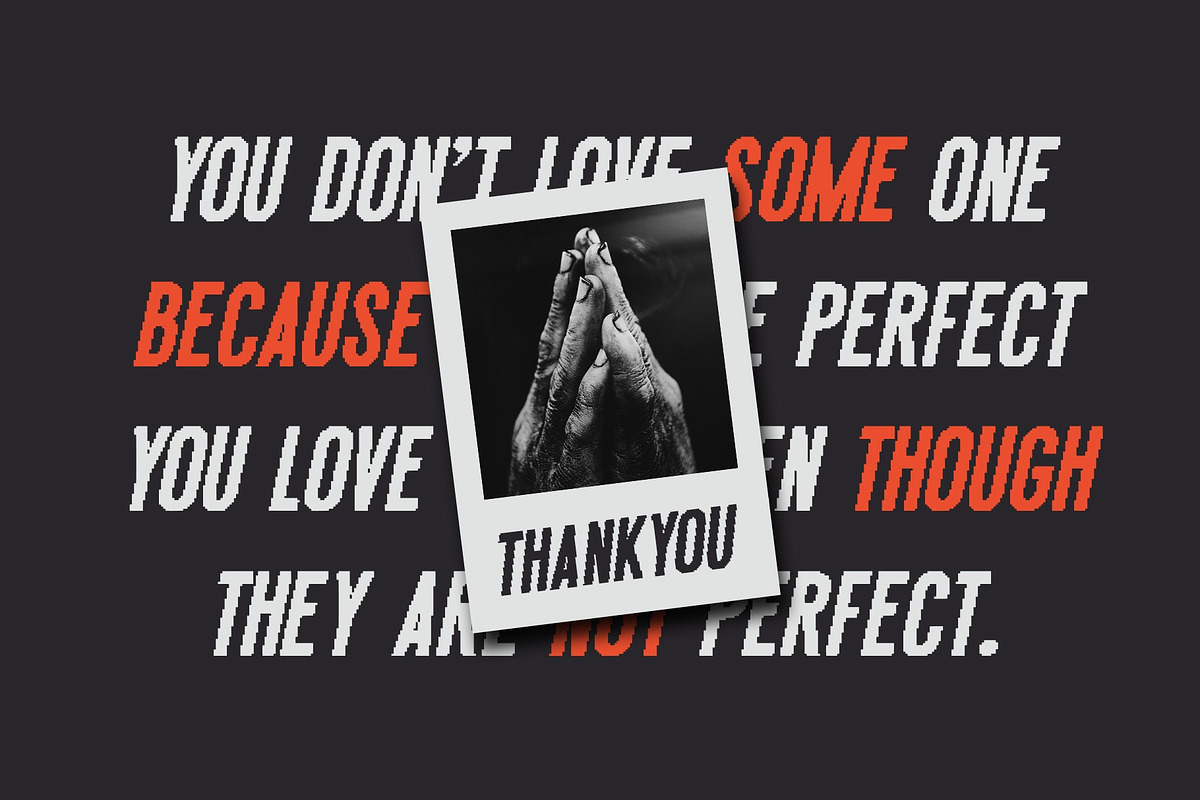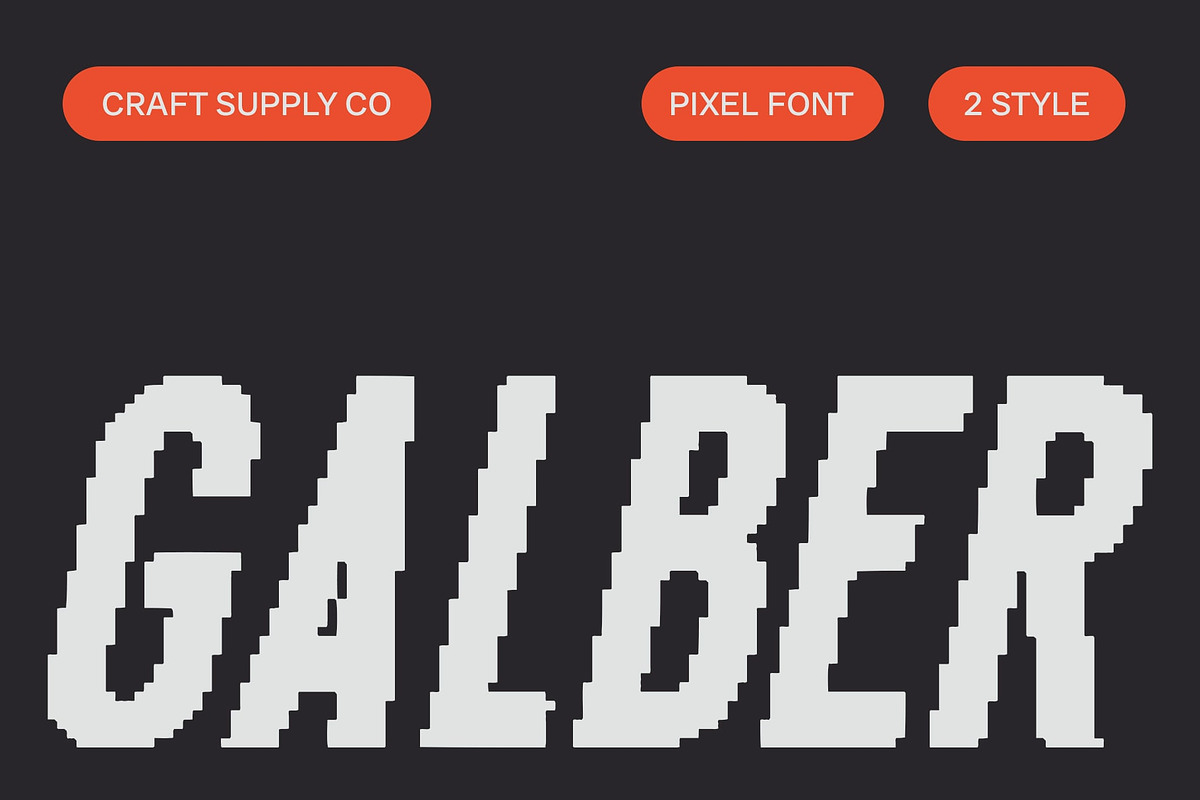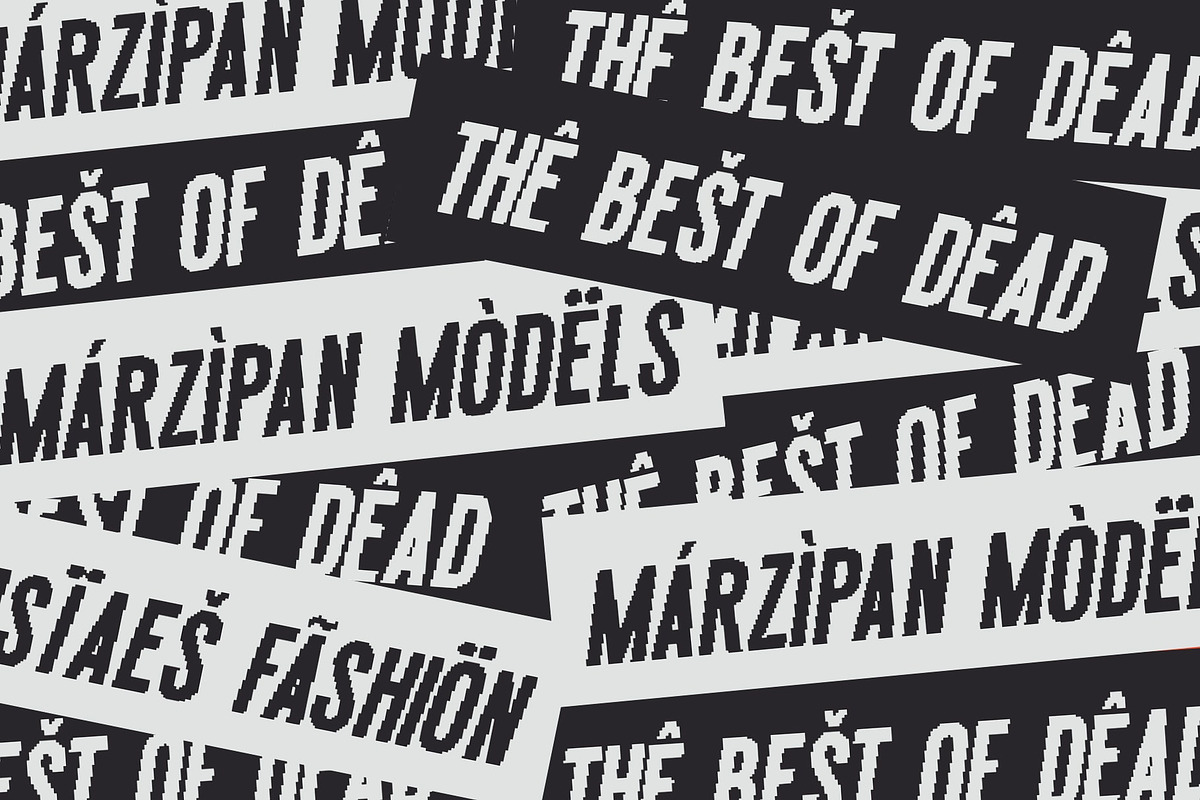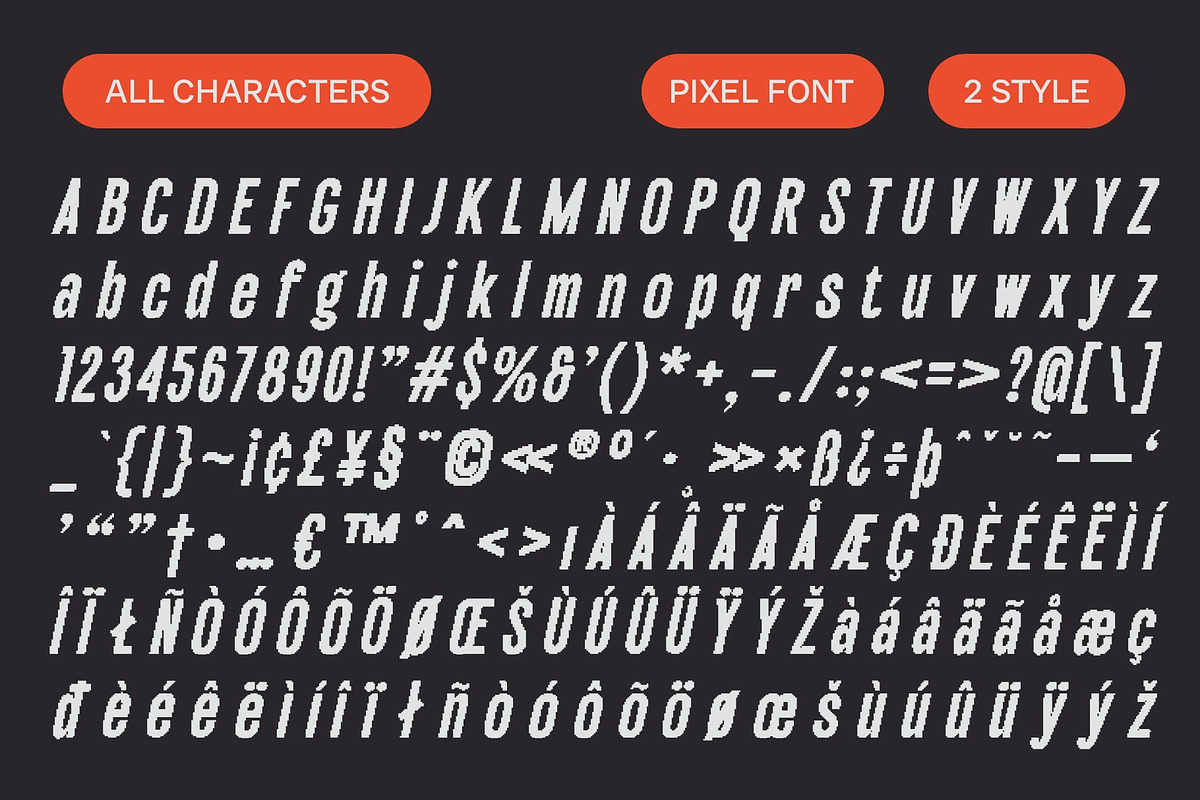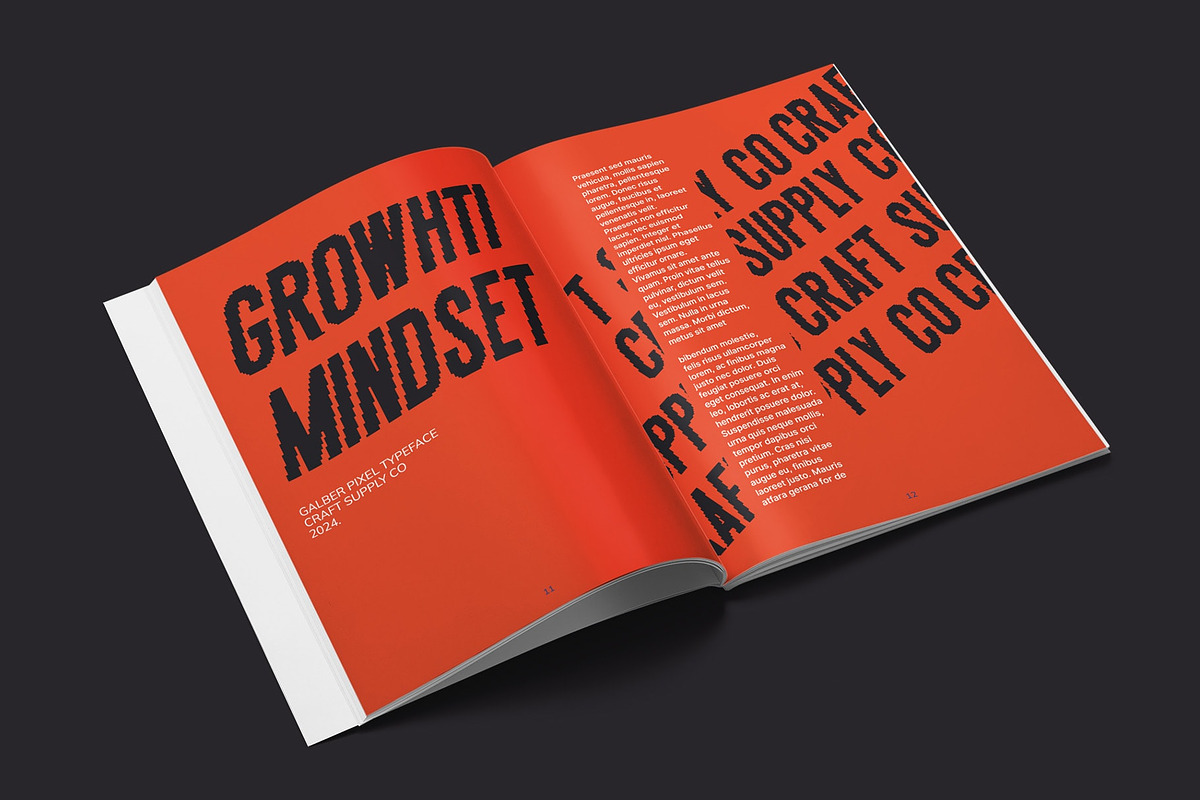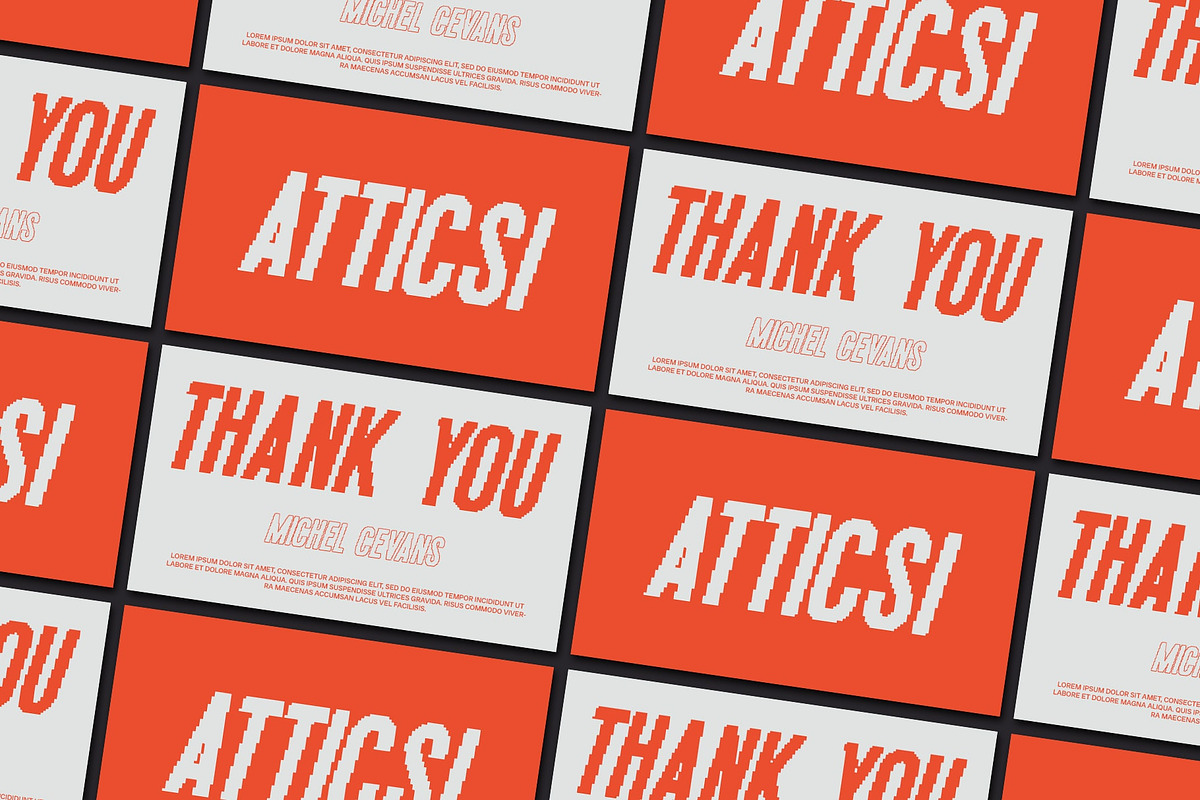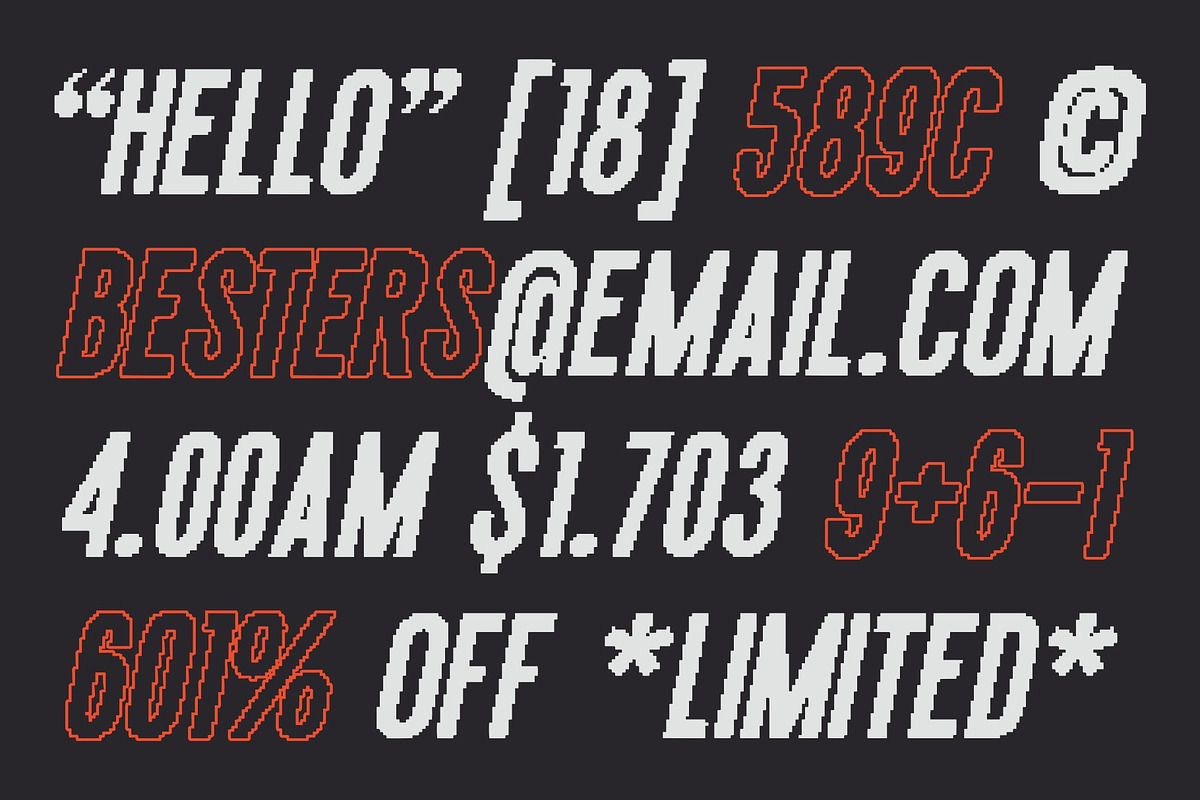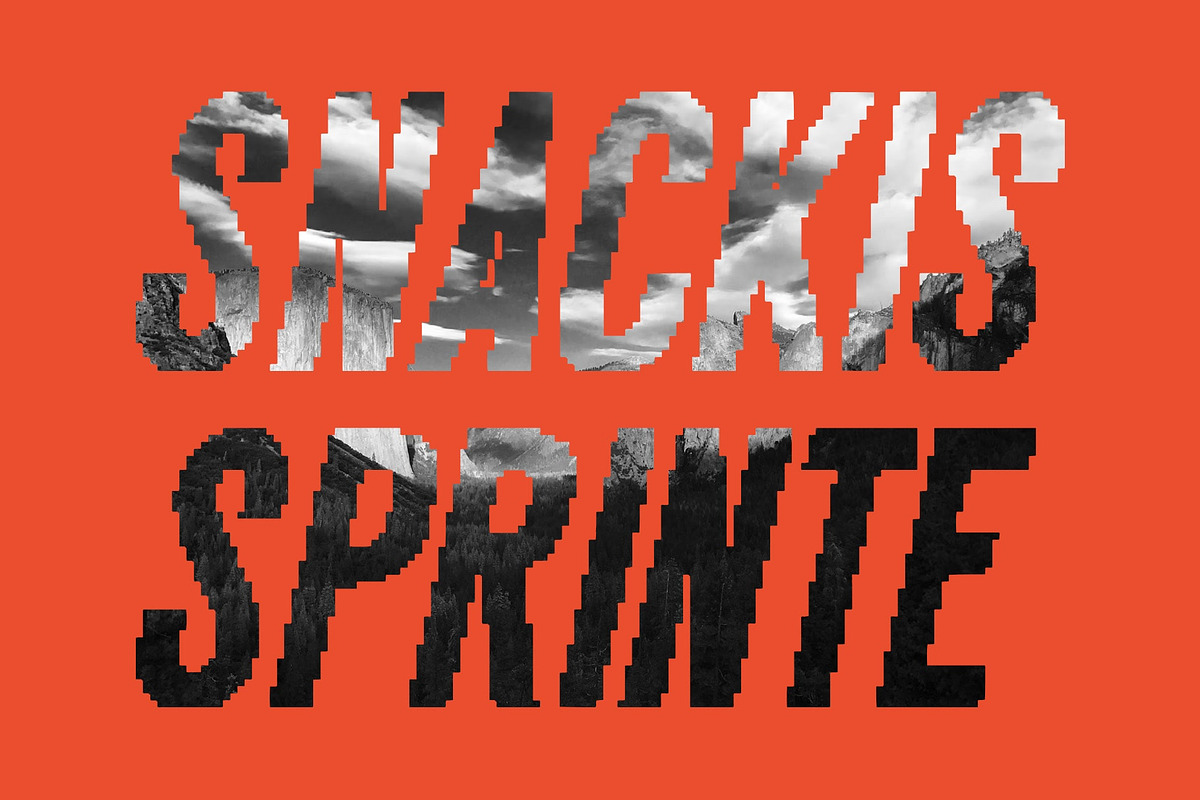
Galber Pixel
Galber: Where Condensed Meets Pixel
Condensed Pixel Sans
Galber is a sans serif font with a condensed form and pixel vibe. Perfect for eye-catching displays, this font adds a modern and distinctive touch to your designs.
Condensed Form with Pixel Vibe
With its space-saving design, Galber offers a condensed form that doesn’t compromise on style. The pixel-inspired elements create a captivating and dynamic look, ideal for posters, digital media, and other projects that need a contemporary and stylish appeal.
Perfect for Striking Displays
Whether you’re designing a flyer for a tech event or creating standout packaging, Galber is sure to make an impression. Its condensed form and pixel vibe make it perfect for displays that demand attention and convey a sense of innovation and creativity.
Versatile and Easy to Use
Despite its distinctive appearance, Galber is versatile and easy to use. The font works well in both large and small sizes, making it suitable for a variety of applications, from headlines and banners to logos and more. With its blend of modern design and pixel elements, Galber adds a captivating and futuristic touch to any design.
- Galber Pixel Regular
- Galber Pixel Outline